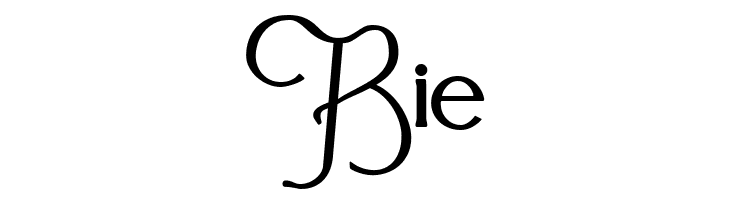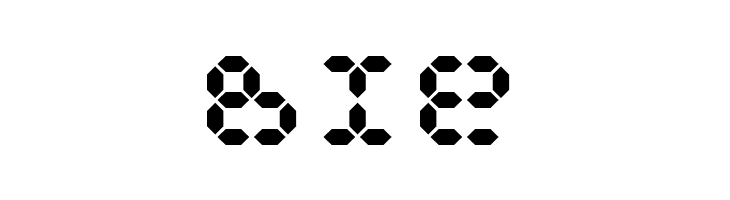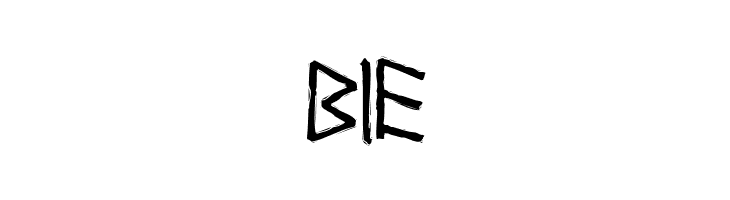
( Paul Lloyd Fonts )
An ornate and decorative display font with intricate flourishes.
A bold, adventurous font with a jungle-inspired theme.
( Fonts by Scott Dieznyik - Kejak (formerly Cheops) )
A textured, honeycomb-inspired font with a playful, handcrafted style.
A bold, angular font with a rugged, rune-like appearance.
( Fonts by Matthew Austin Petty - www.disturbed.com )
A playful, hand-drawn font with quirky, decorative letterforms.
( Fonts by Manuel Viergutz - Typo Graphic Design - www.typographicdesign.de )
A geometric, blocky font with uniform line thickness and a digital aesthetic.
A geometric, grid-based font with a modern, digital appearance.